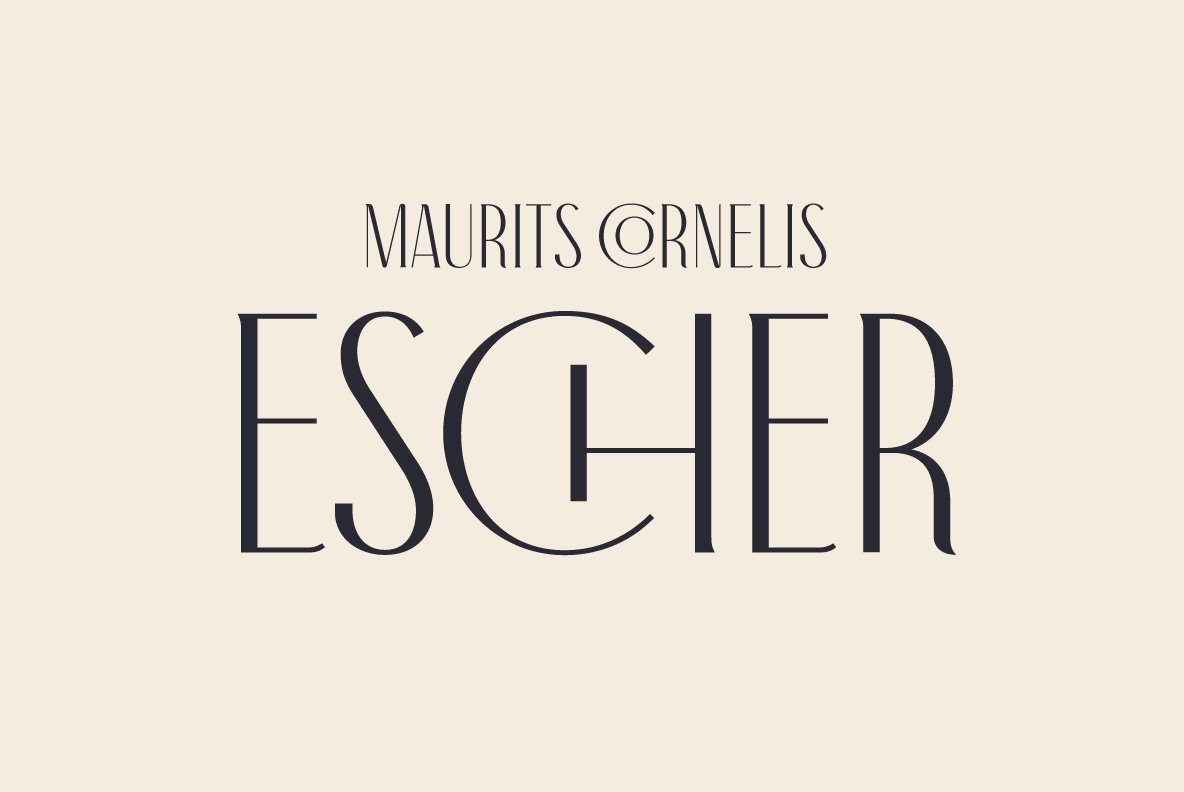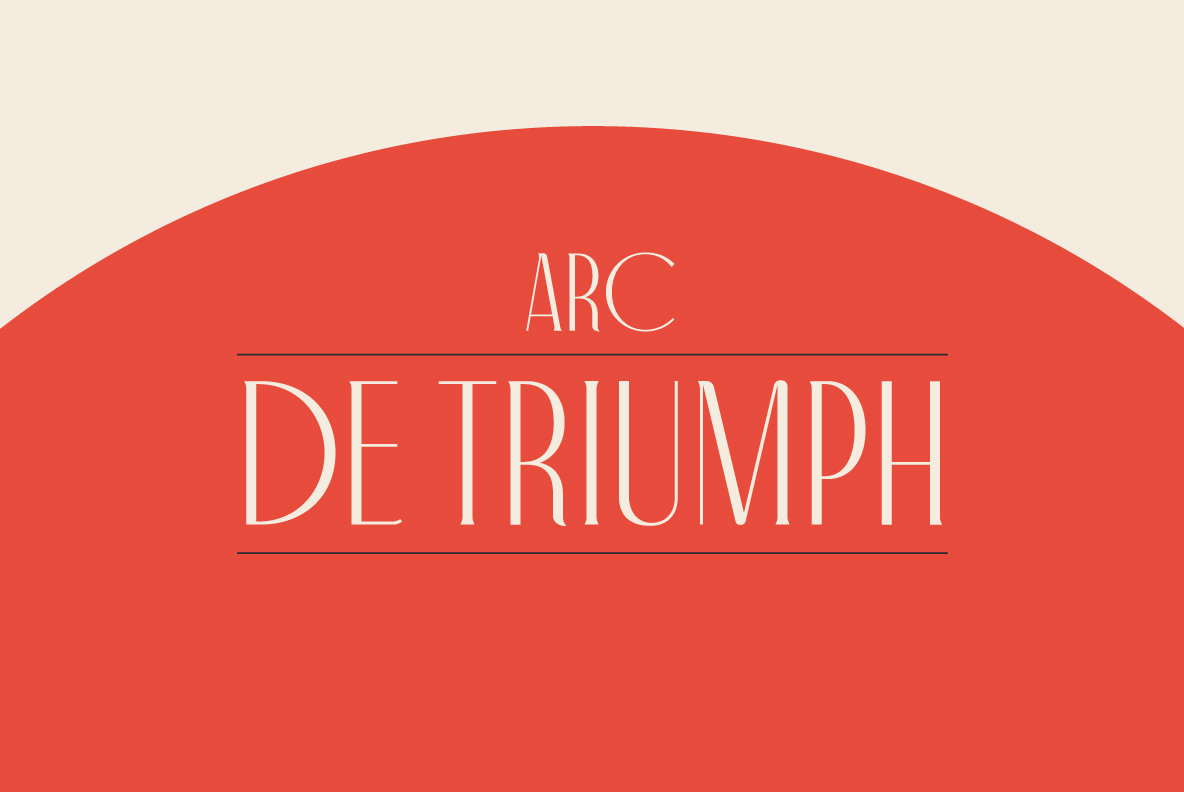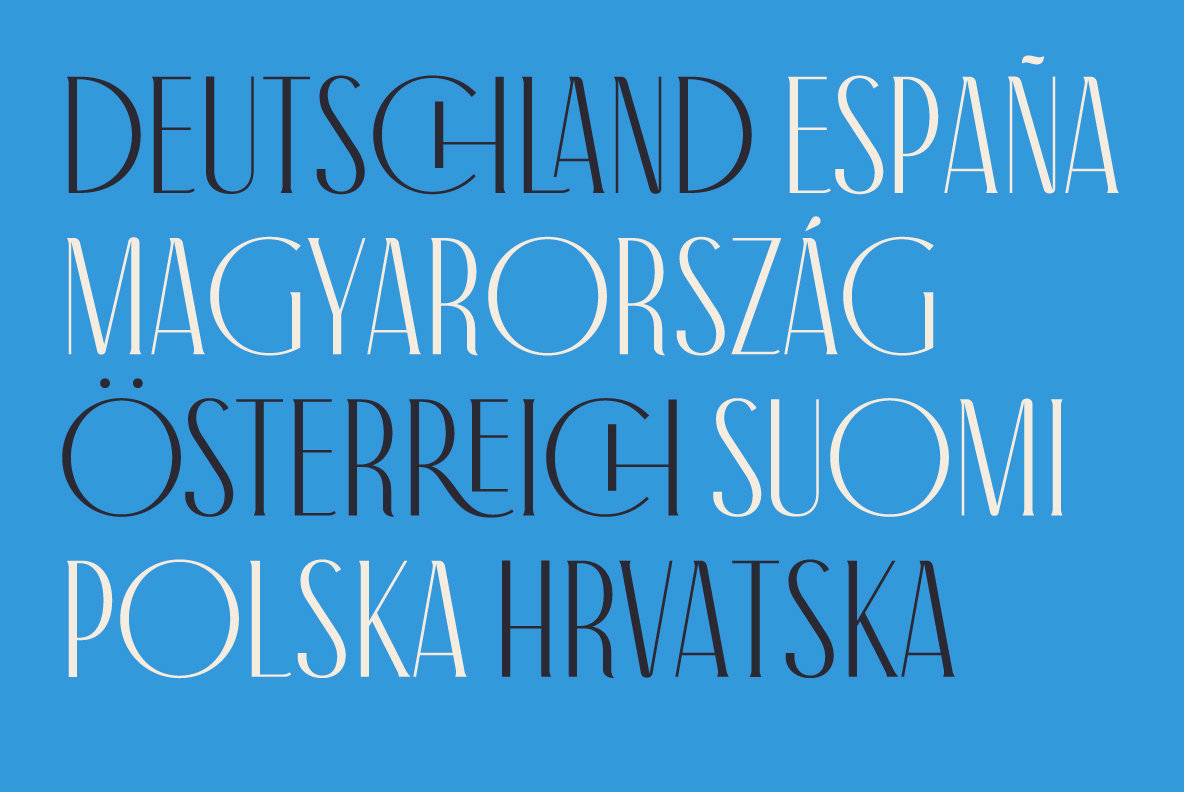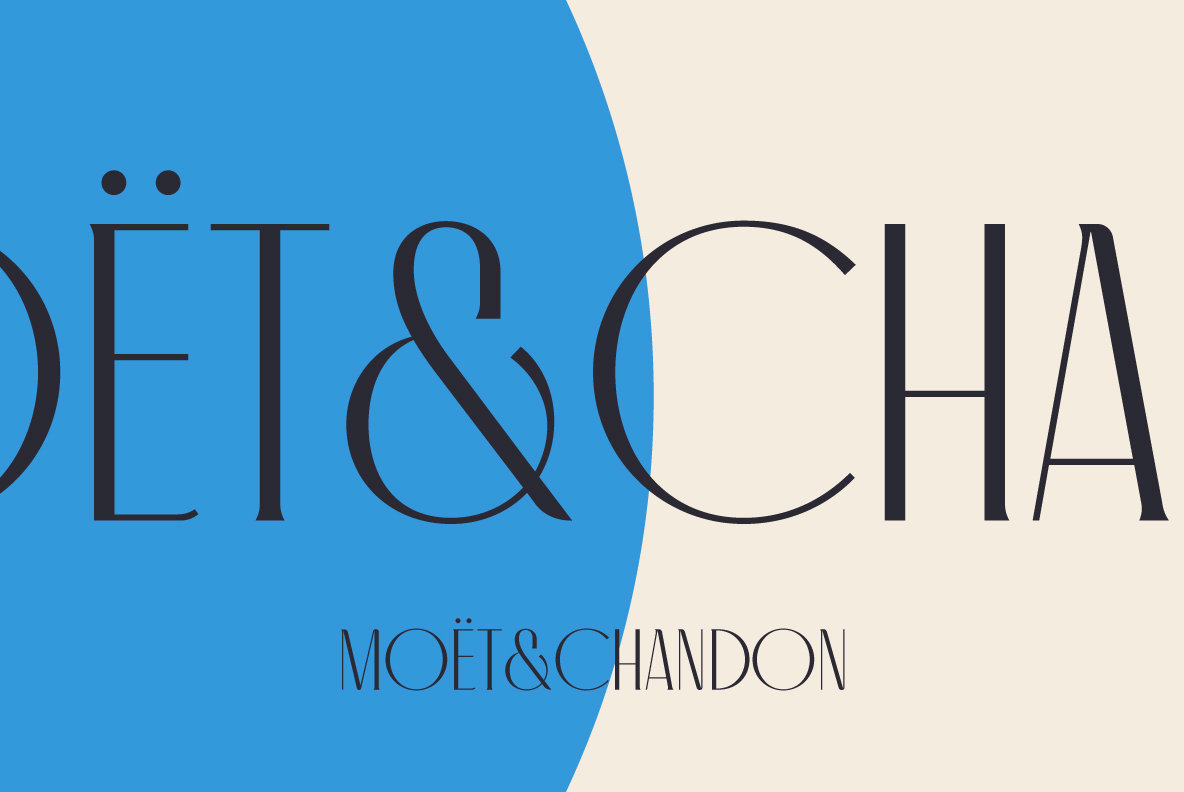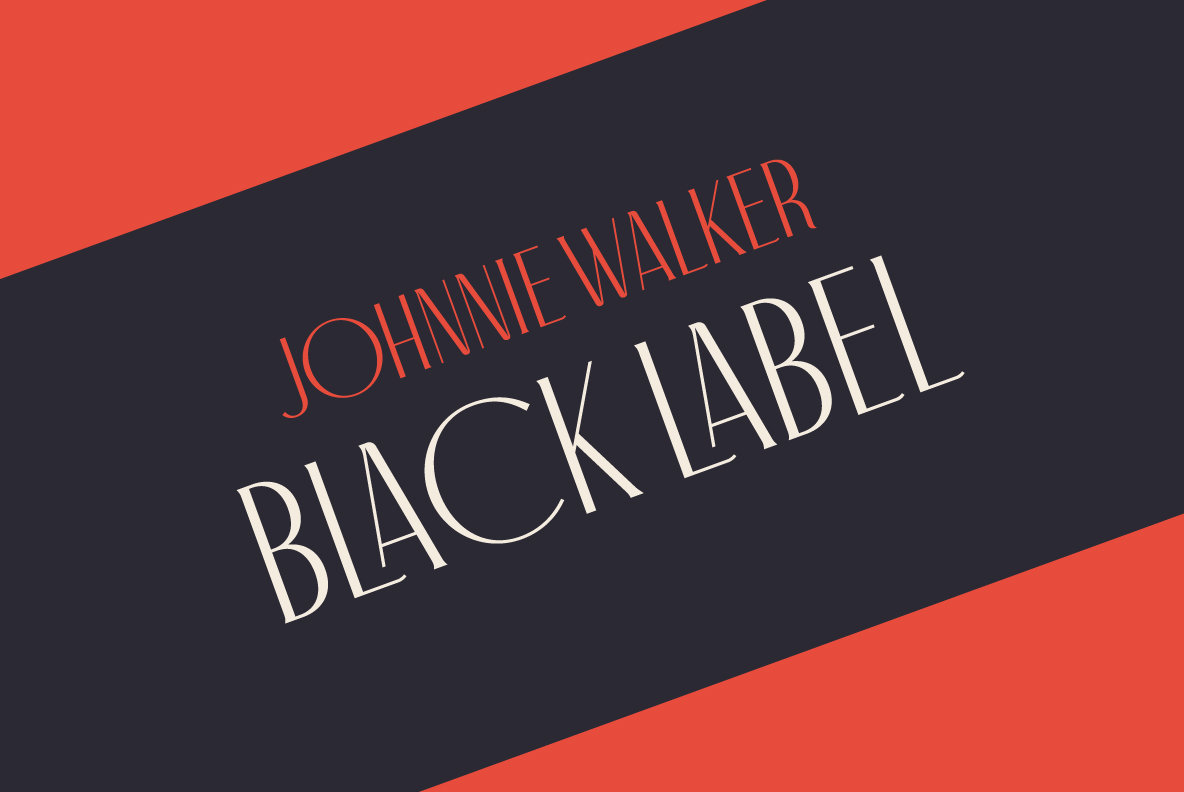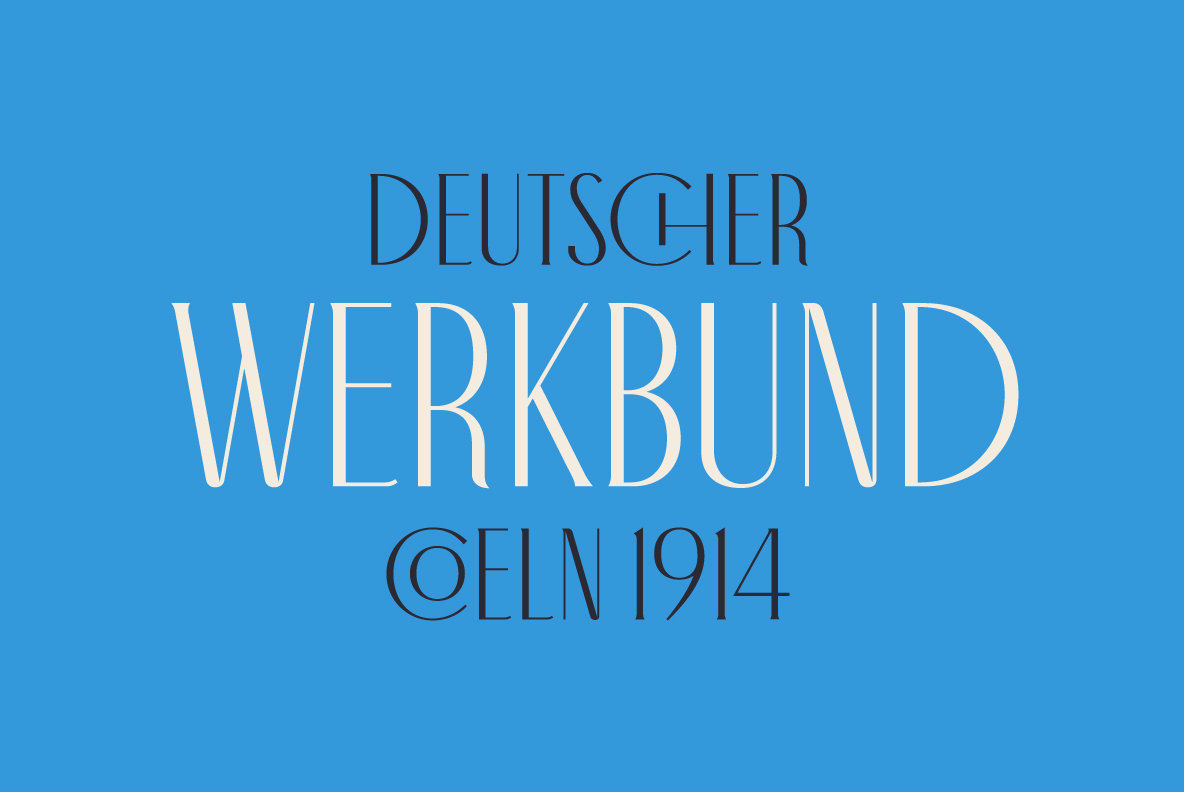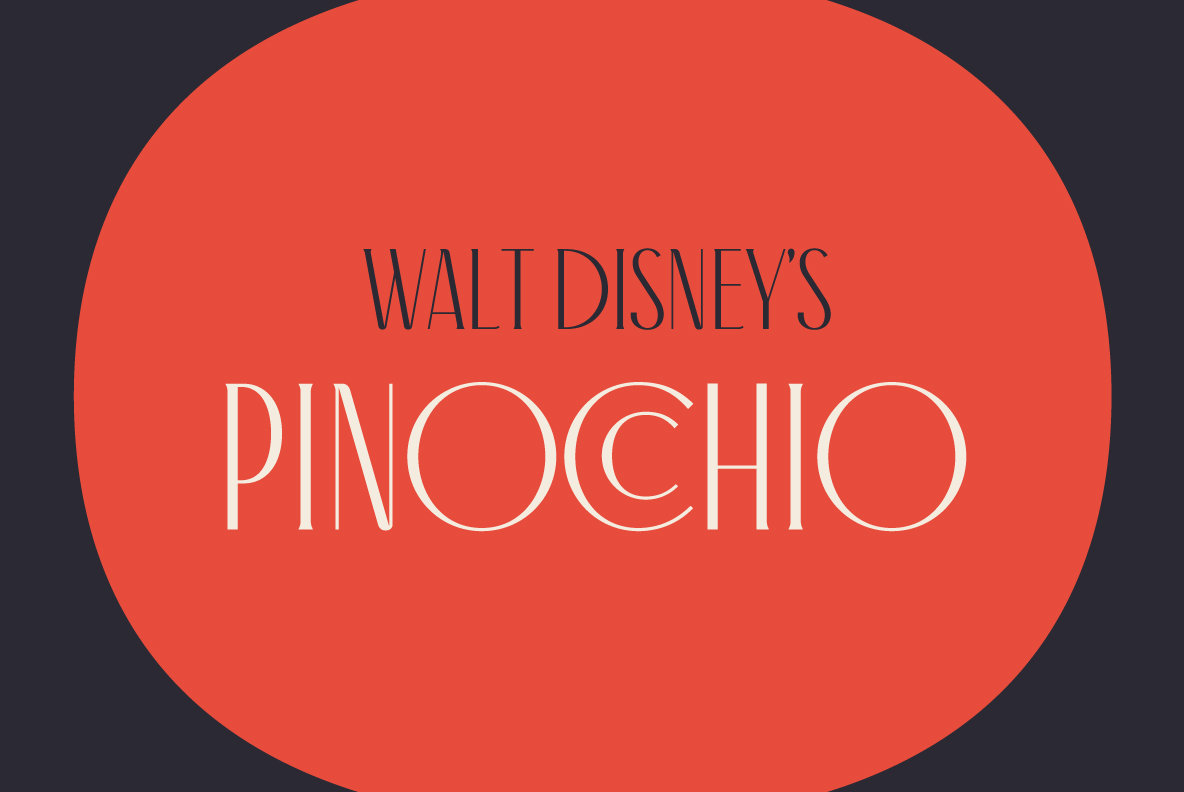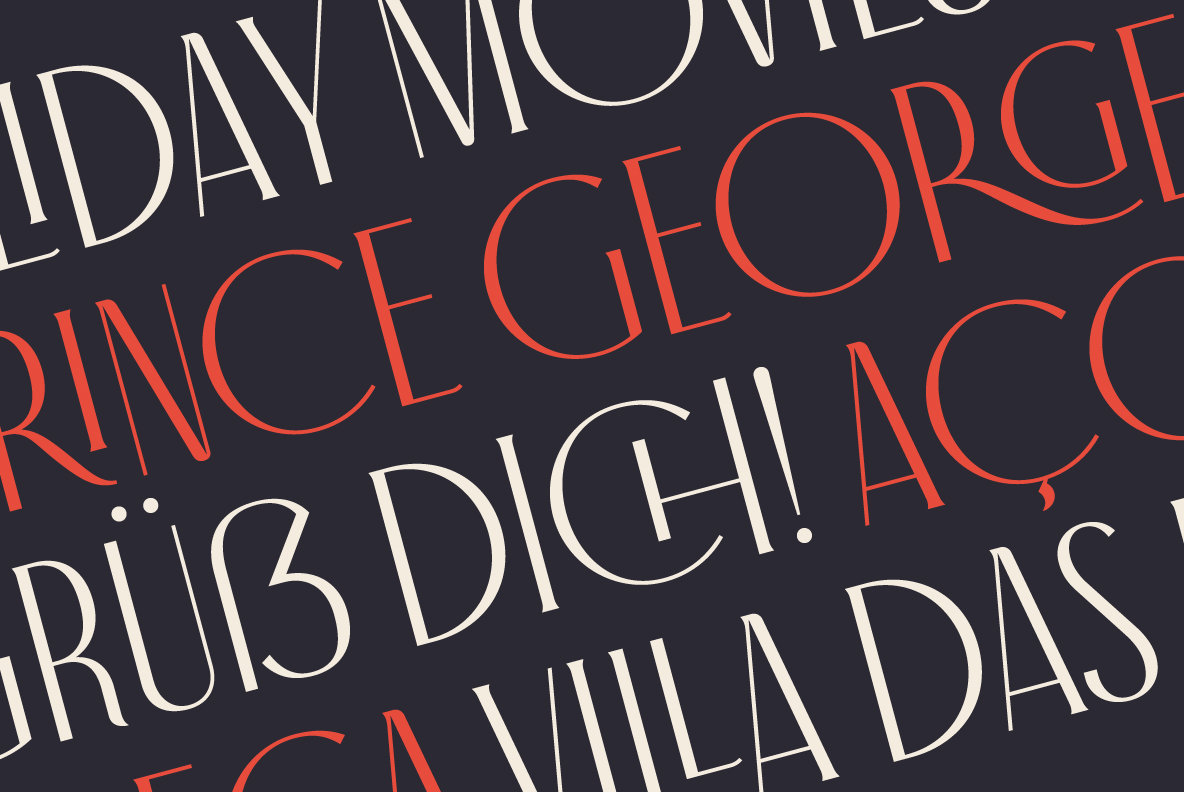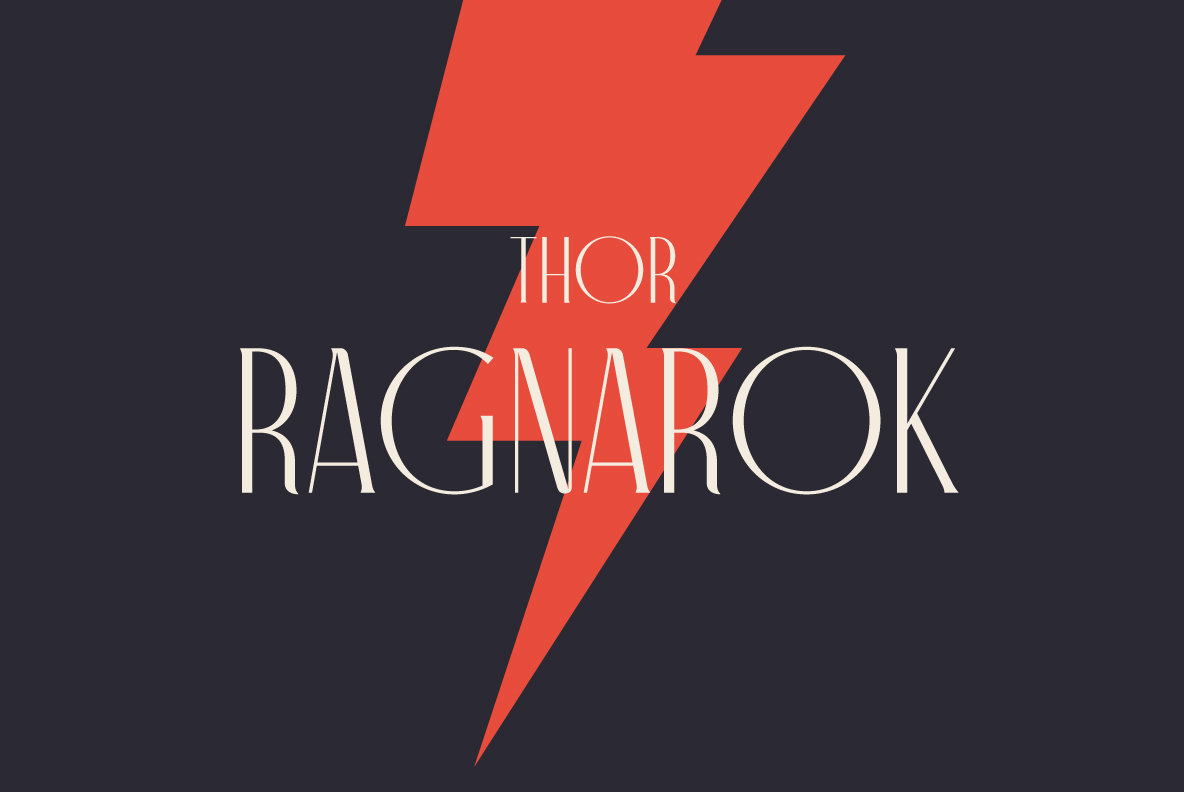
Antiga Font
Antiga
What happens when Roman and Art Nouveau heritage get together? Antiga happens. Combining an old style typeface with an elegant and modern touch, Antiga is ideal for magazines and newspaper headlines, or even book covers! With a delightful and versatile amount of ligatures and diacritics, Antiga will give your text a unique personality.
Rafael Serra aka FAEL is a Graphic and Type Designer based in Lisbon, largely focused in crafted typography and branding. He uses typography to communicate brands effectively and in his own way.